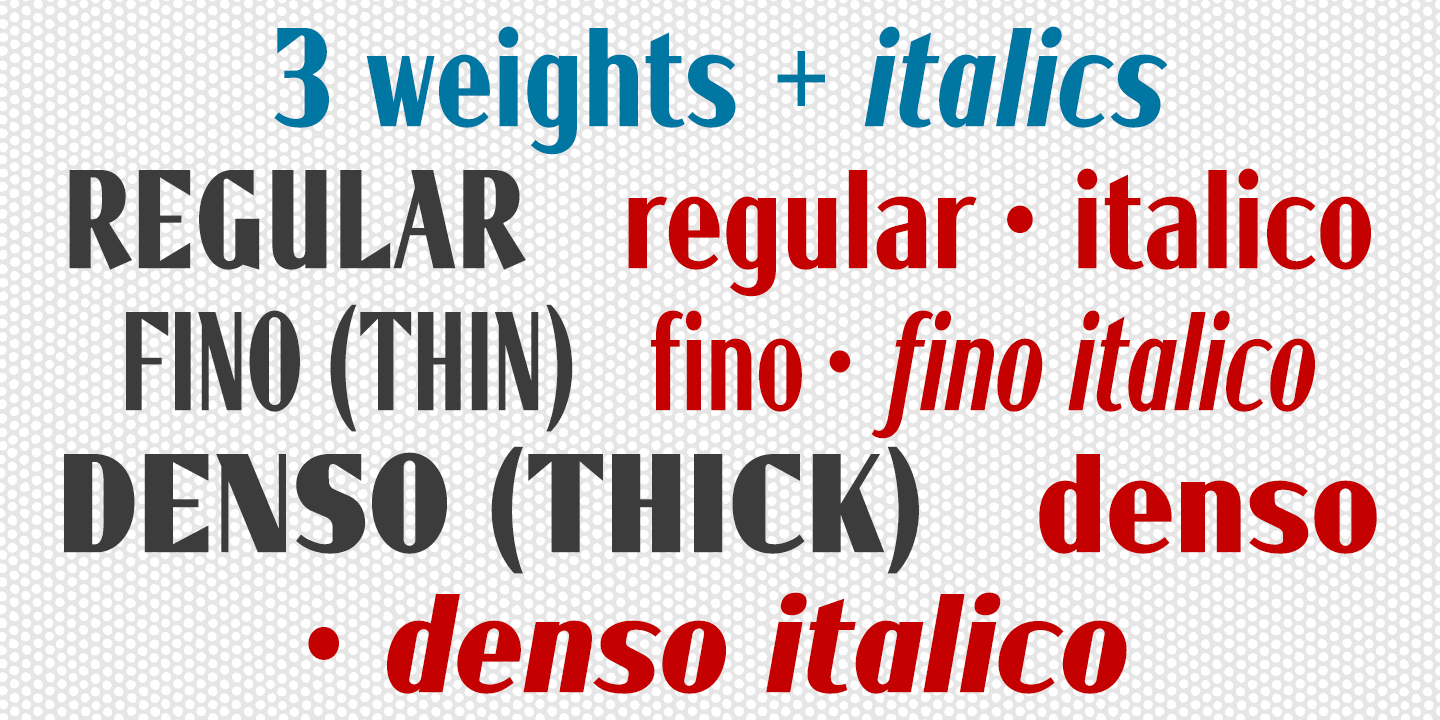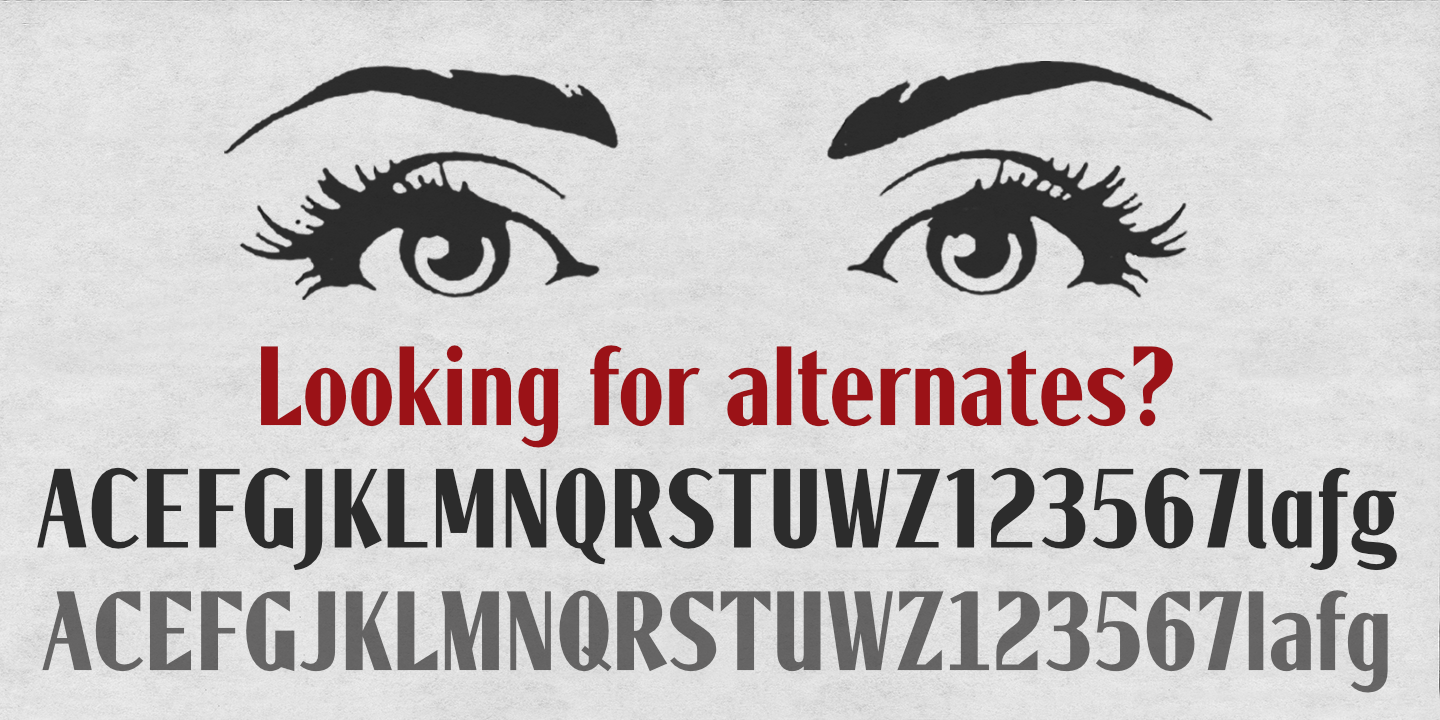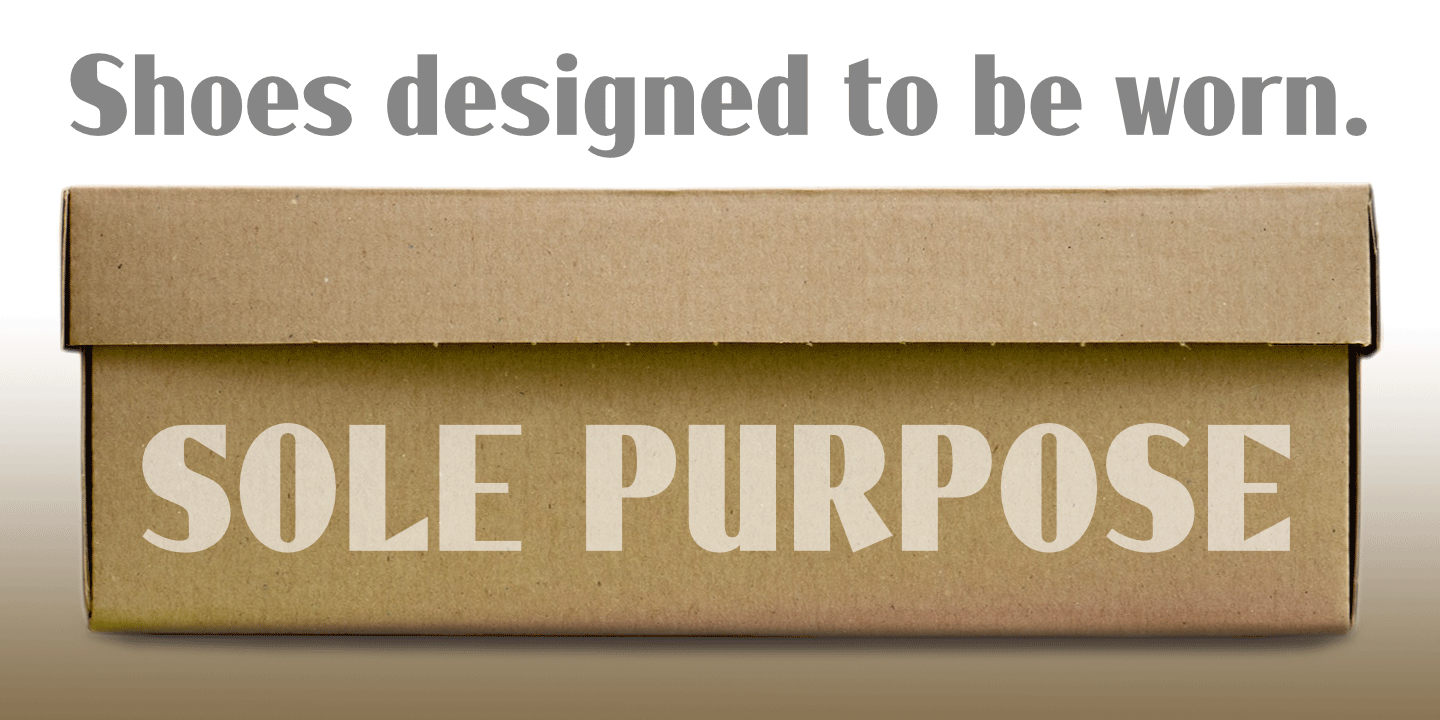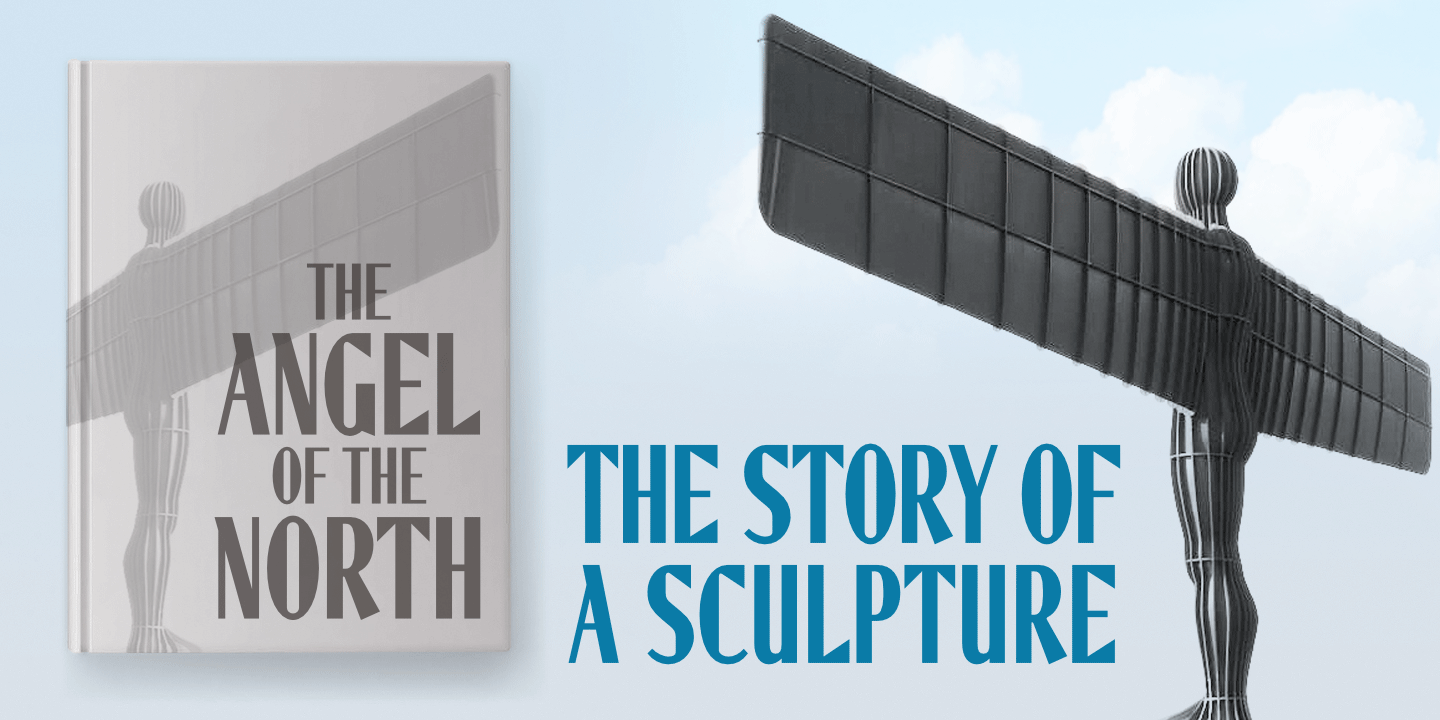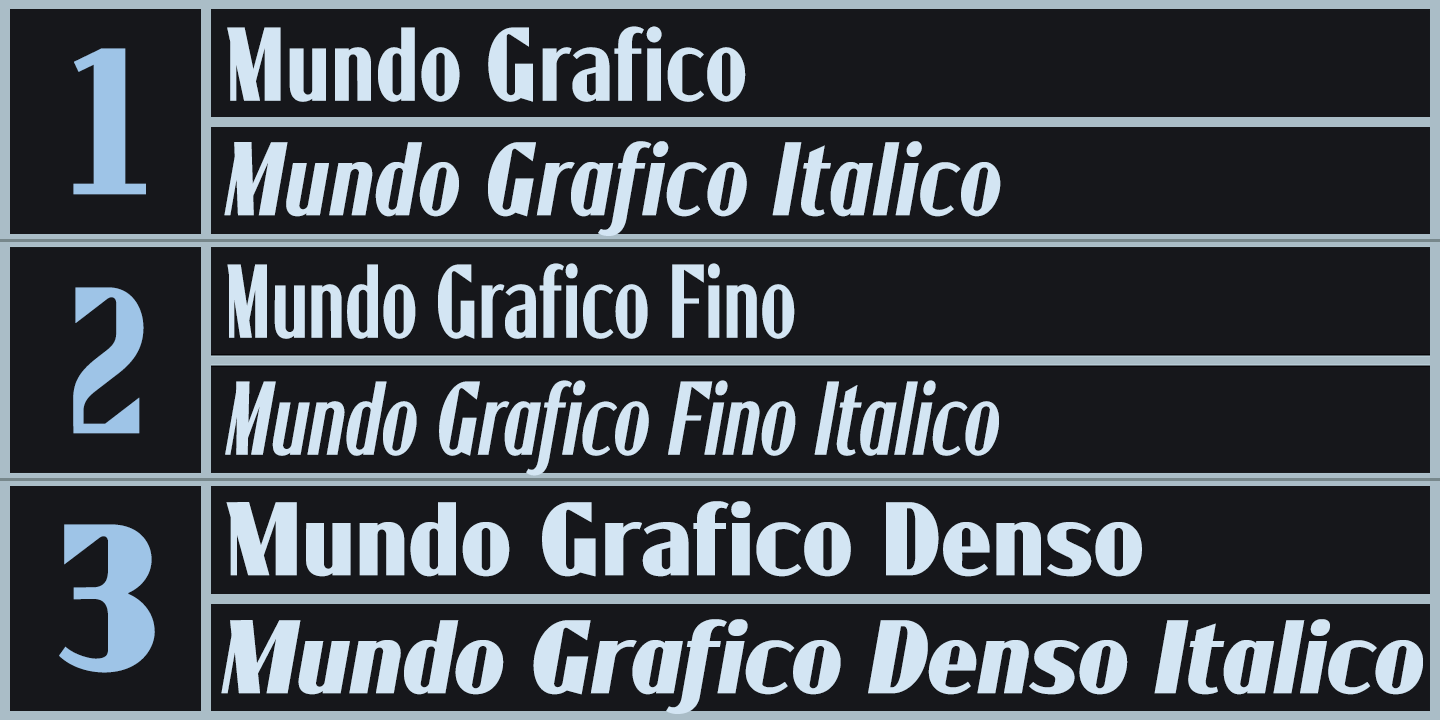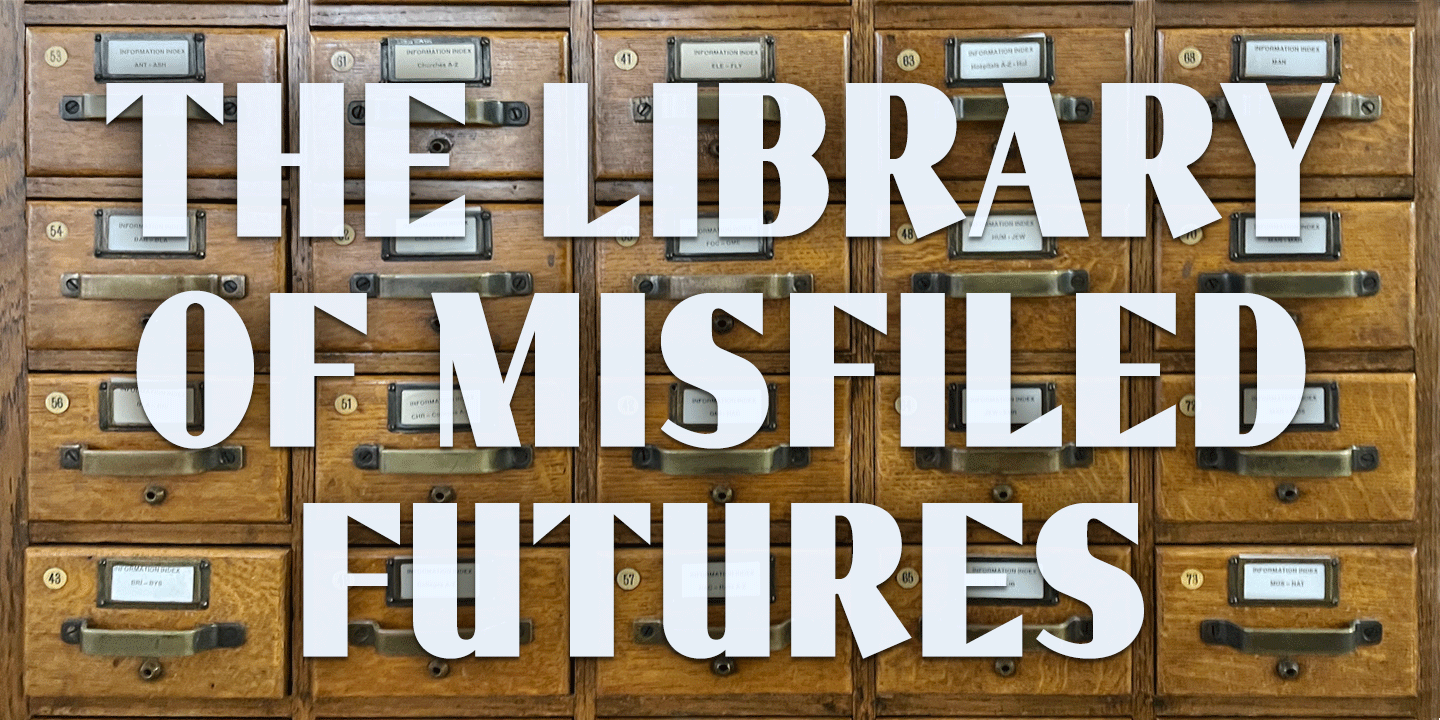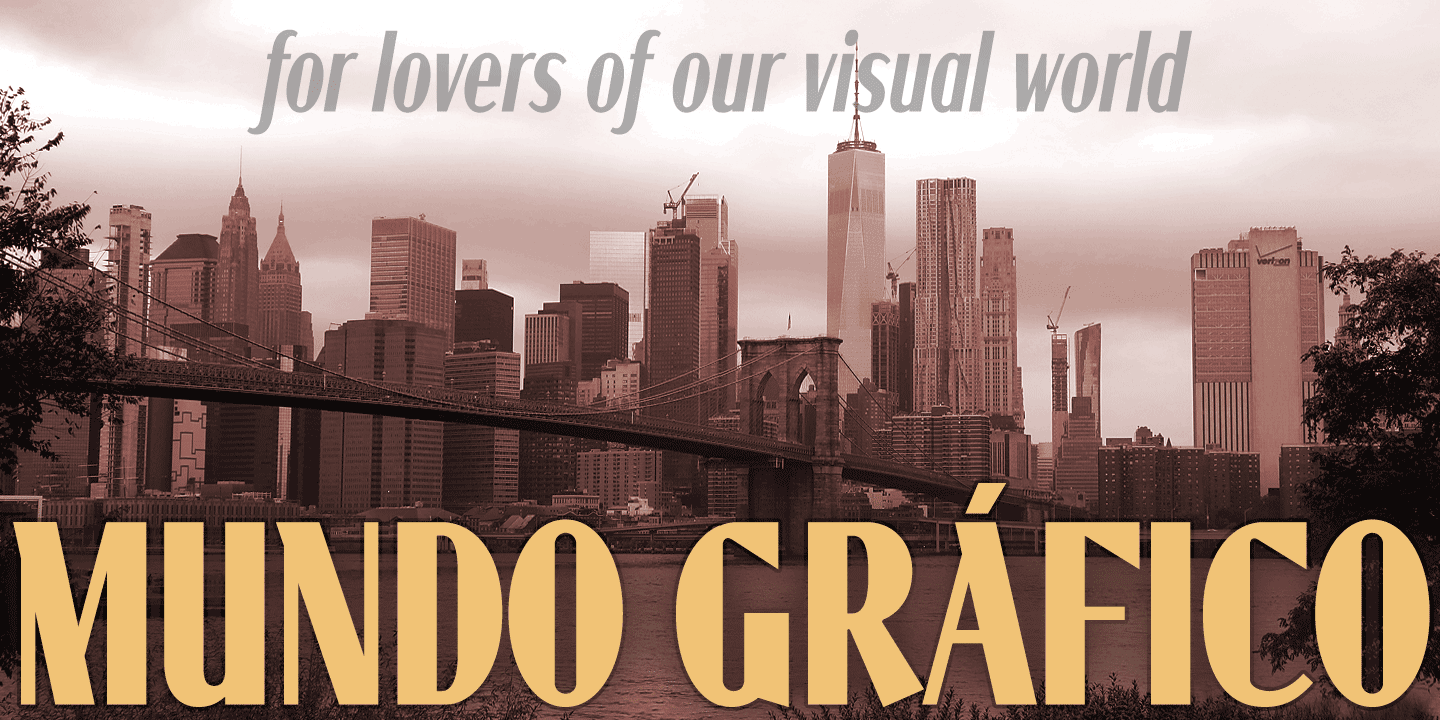
Mundo Grafico
Mundo Grafico is a high-contrast sans serif based on the masthead of the eponymous 1940s Portugese magazine. The typeface punches above its weight, vivacious, and with an Art Deco persona that is perfect for display usage such as titles, captions, packaging, advertising, posters, signage, etc.
The family comprises 3 weights – Regular, Thin (Fino) and Heavy (Denso) – each with an optically corrected italic. The fonts contain a full compliment of Latin Extended-A characters, and include useful alternates, many providing simpler variations to more decorative glyphs.